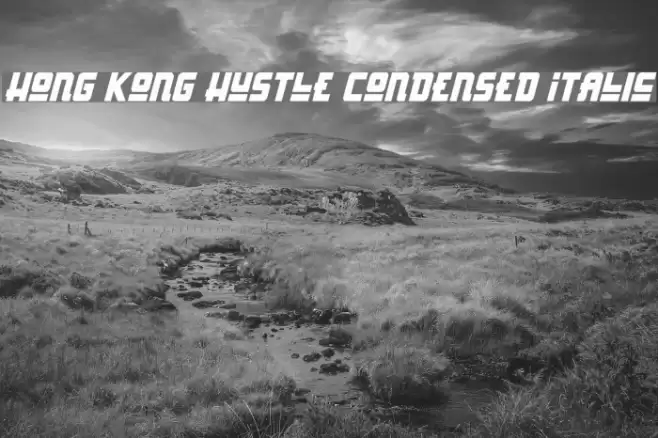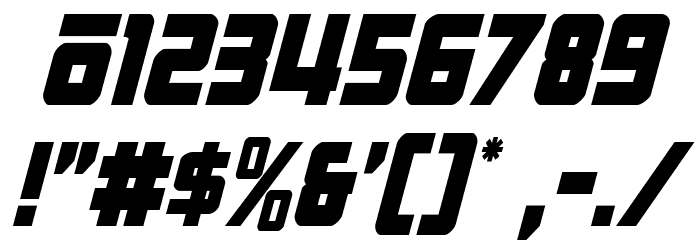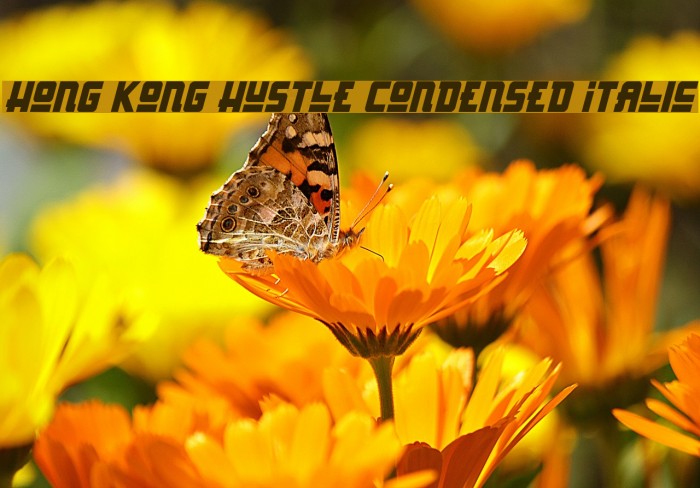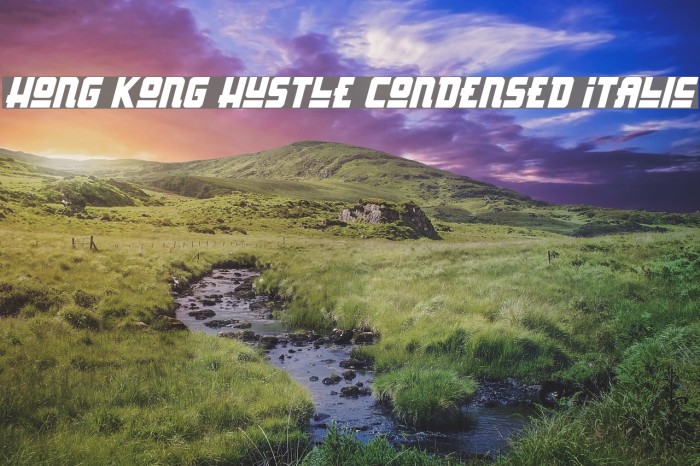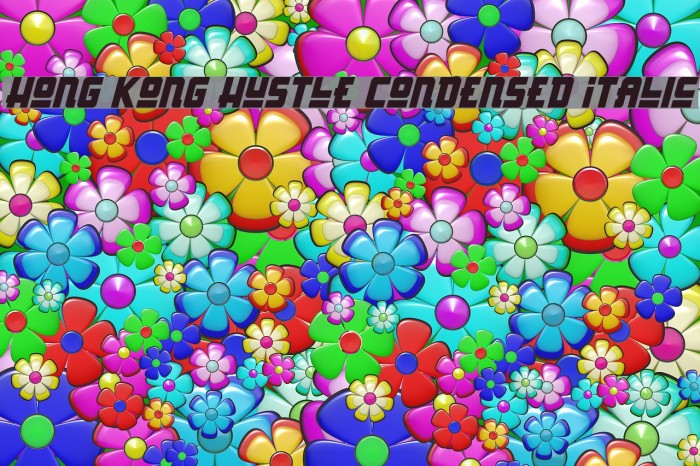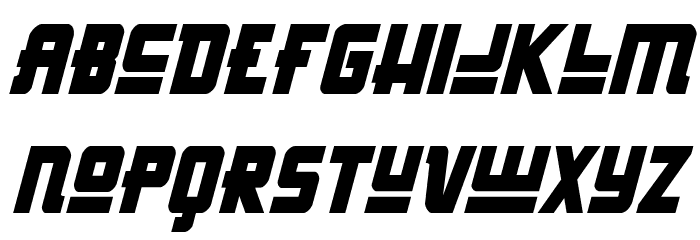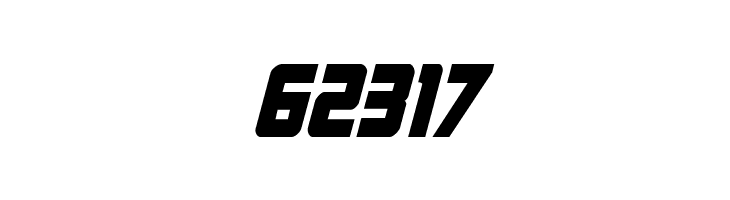
Hong Kong Hustle Condensed Italic Font
Hong Kong Hustle Condensed Italic Description
This font exhibits a bold and dynamic style with a distinctly modern flair. The characters are condensed and italicized, giving them a sleek, forward-leaning appearance that suggests movement and energy. The strokes are thick and consistent, providing a strong visual impact. The angular cuts and sharp edges contribute to a futuristic and industrial aesthetic, making it suitable for projects that require a bold statement. The uppercase and lowercase letters maintain a uniform style, while the numerals and special characters are designed to match the overall theme, ensuring coherence across all text elements.
A bold, condensed, and italicized font with a modern, dynamic style from Uncategorized fonts.
- Proposed Projects: Ideal for branding, posters, sports team logos, and any project needing a bold, energetic typeface.